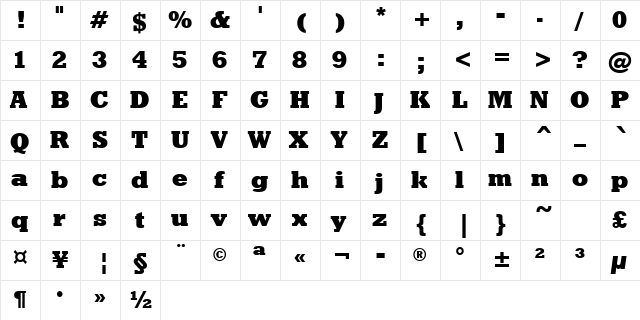
GeoSlb712Greek XBd BT Extra Bold
Design Context for GeoSlb712Greek XBd BT Typeface
GeoSlb712Greek XBd BT is a composed and adaptable typeface that performs quietly and consistently across a wide range of design contexts. The heavy weight commands attention and anchors typographic hierarchies.